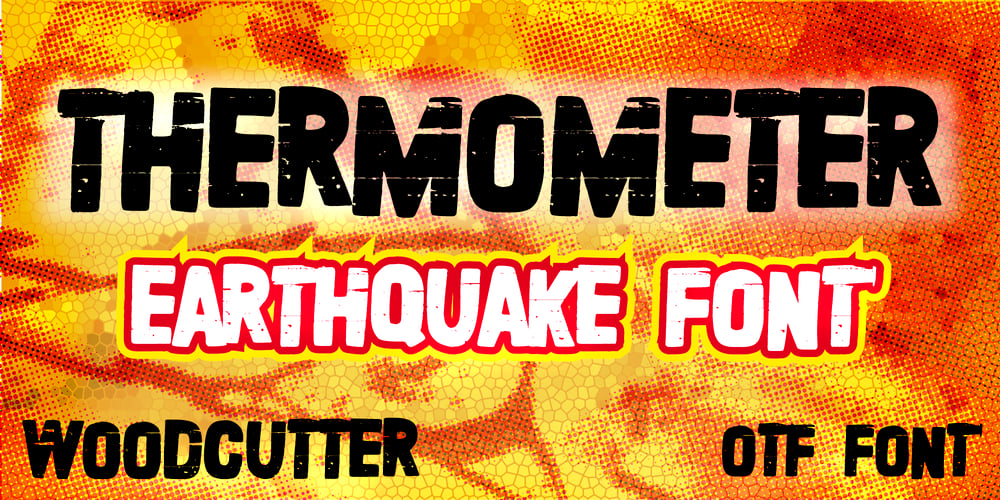
Thermometer Font Family was designed by Jordi Manero and published by Woodcutter. Thermometer contains 1 styles and family package options. Font Thermometer, with a shattered style, imitating the effect of an earthquake in your designs, ideal for posters, covers of your work, with an aspect of destruction and movement.